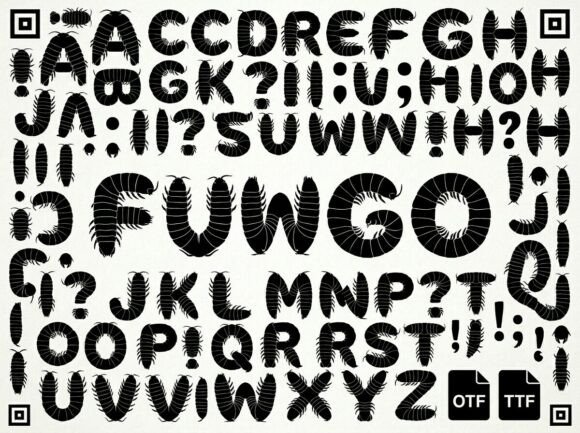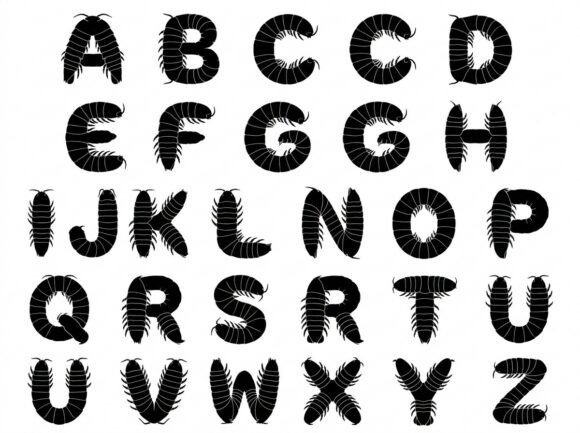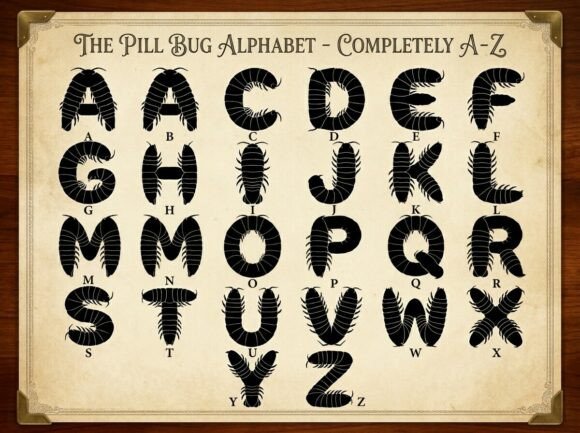
Unleash Your Creativity with Fungo Font
There’s nothing quite like the rush of adrenaline you feel when you’re working on a design project and everything just clicks – the colors, the typography, the overall vibe. You know you’ve got something special, and you want to make sure it stands out from the crowd. That’s where Fungo Font comes in, a stunning decorative display font designed to be the center of attention.
This versatile font is perfect for designers who want to add a touch of sophistication and personality to their work. With its unique artistic elements and professional finish, Fungo Font is ideal for bold headlines, artistic logos, and creative packaging. Whether you’re working on a branding project or a visual identity, this font is sure to make a lasting impression.
As a valuable addition to any designer’s toolkit, Fungo Font offers a level of creativity and flexibility that’s hard to find elsewhere. With its all-caps design, it’s perfect for high-impact headlines, logos, and decorative initials where every letter is a work of art.
Fungo Font Key Features
- Font Family: Fungo Font is a unique, hand-drawn font designed for creative and playful purposes.
- Font Size: Offers a range of font sizes, from 12pt to 72pt, making it suitable for various design projects.
- Resolution: Designed for high-resolution printing and digital displays, with optimal results at 300 DPI and above.
- Unique Characteristics: Features a distinctive, whimsical design with intricate details and textures, perfect for adding a touch of personality to designs.
Fungo Font Review
Overall, I think Fungo Font has some great qualities that make it a solid choice for designers, but it’s not without its limitations.
- ✨ Unique and quirky design: Fungo Font has a distinctive style that’s sure to stand out in your designs.
- ✨ Versatile: The font comes in a range of weights, from light to bold, making it suitable for a variety of projects.
- ✨ Good legibility: Despite its quirky design, Fungo Font is still easy to read, even at smaller sizes.
- ⚠️ Limited support: Fungo Font may not be compatible with all operating systems or software, which could be a problem for designers working on cross-platform projects.
- ⚠️ Not suitable for body text: While Fungo Font is great for headings and titles, it may not be the best choice for body text, where readability is crucial.
Fungo Font is a great addition to any designer’s toolkit, but it’s essential to use it judiciously. When used for headings and titles, Fungo Font can add a unique touch to your designs. However, for body text, it’s best to stick with more traditional fonts. With its quirky design and versatile range, Fungo Font is definitely worth considering, but be aware of its limitations.
Fungo Font Practical Application Guide
Using Fungo Font in PowerPoint/Word
In PowerPoint and Word, you can use Fungo Font by selecting it from the font dropdown menu. You can apply it to text elements, headings, and even use it for custom graphics. Use the font’s unique features to add visual interest to your presentations and documents.
Experiment with different font sizes, colors, and styles to get the most out of Fungo Font. Combine it with other fonts for a unique look or use it as a bold accent font. Don’t be afraid to push the limits of Fungo Font and try new things!
Fungo Font is perfect for graphic designers, marketers, and anyone looking to add a unique touch to their designs. Use it for logos, branding materials, social media graphics, and more. The possibilities are endless with Fungo Font!